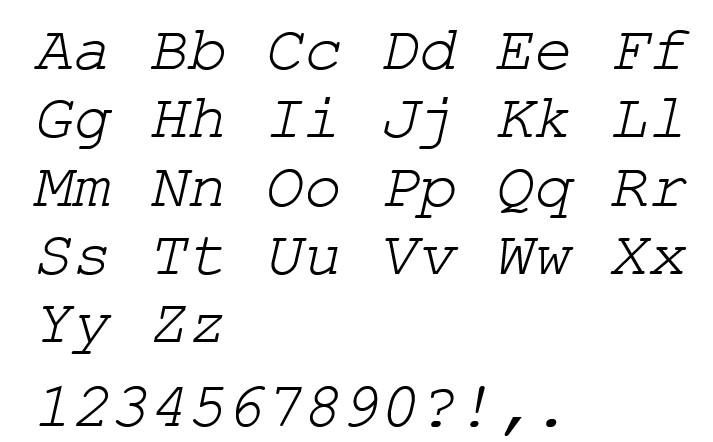
Courier New Font is the latest and trendy slab-serif typeface that was created by Howard Kettler. Originally, it was designed as a typewriter face for IBM, and after some time famous font designer Adrian Frutiger redesigned the IBM Selectric series.
The different weights and styles of this typeface make it ideal for different designs such as logos, and posters and it is also being used for both official and unofficial documentation styling.
In this typeface, you will see the rounded termination and this is the reason that this typeface is the perfect choice for authentic titles and also for different creations as well this will add a pleasant look to the design.